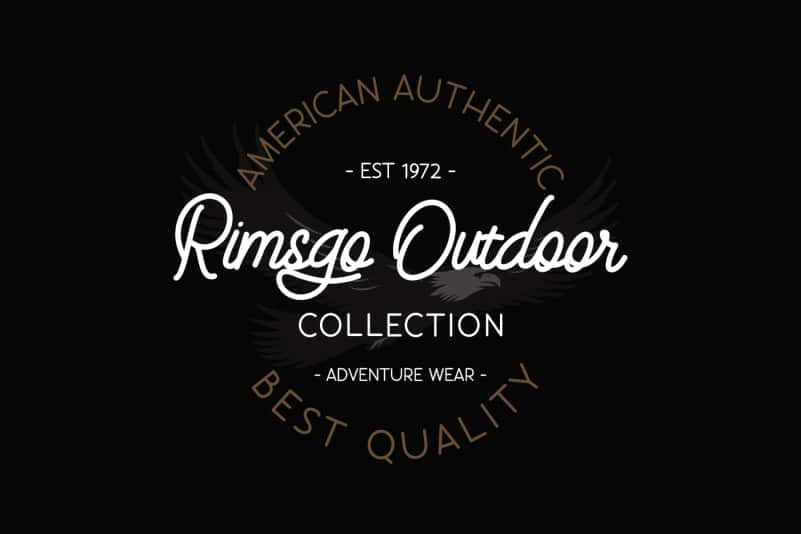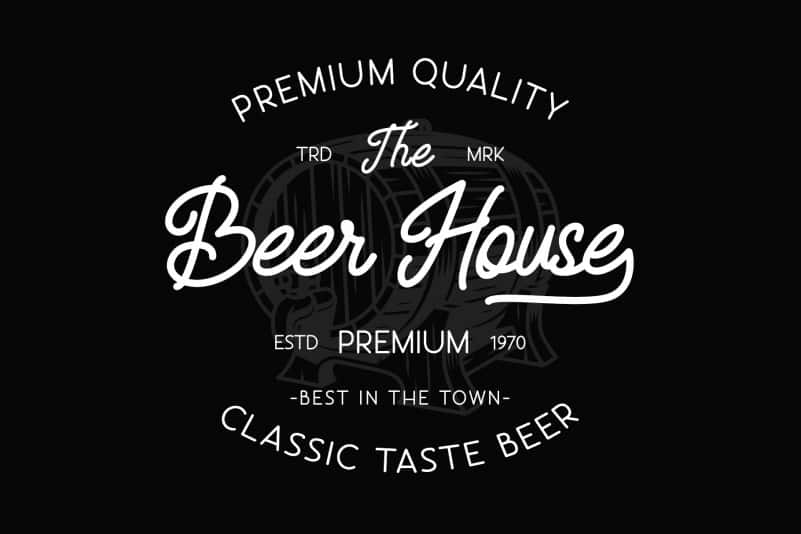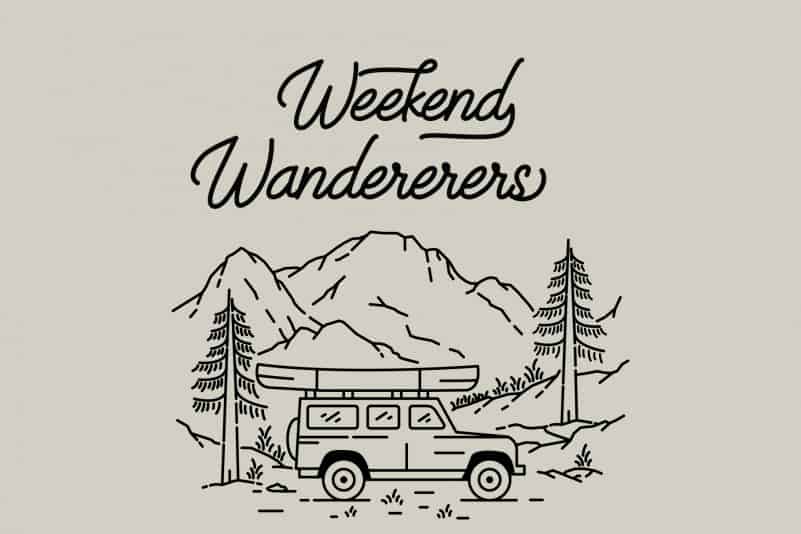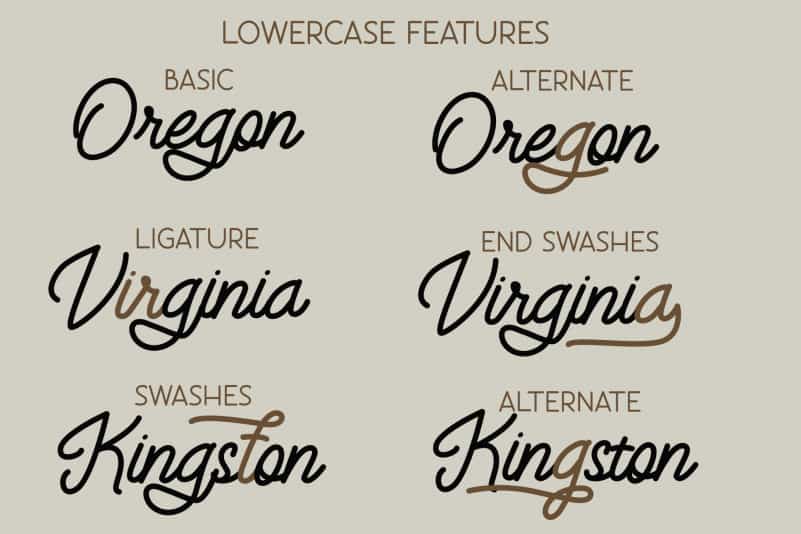
Eastsiders Monoline Font Duo
Eastsiders Monoline Font Duo is Font duo with monoline script and monoline sans. it’s inspired from a minimalist handcrafted aesthetic that pairs so well with monoline illustrations. The script font have a smooth edges, so it will bring a amazing handwriting looked like.